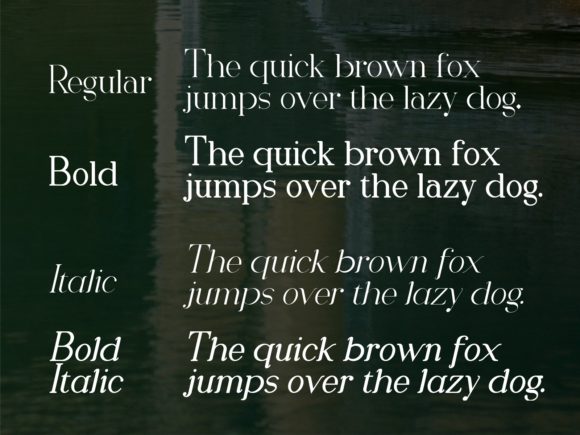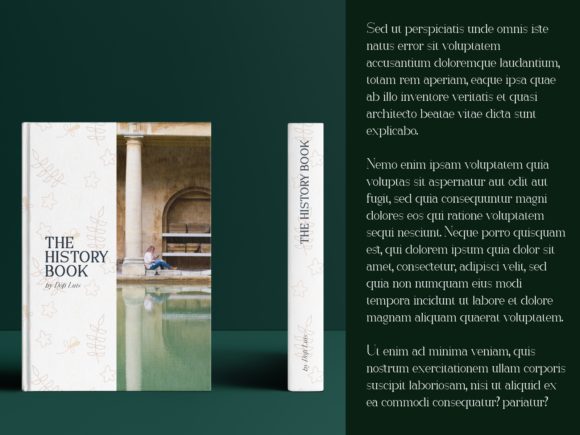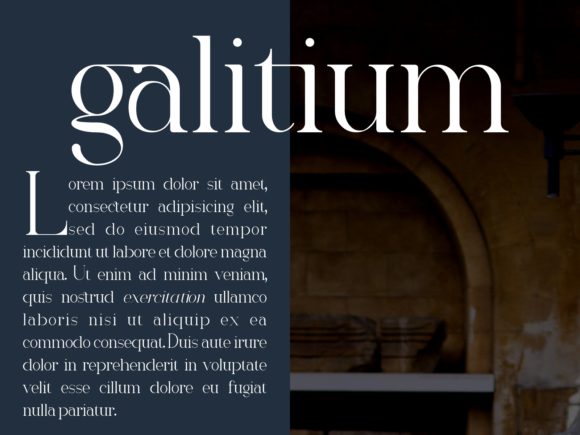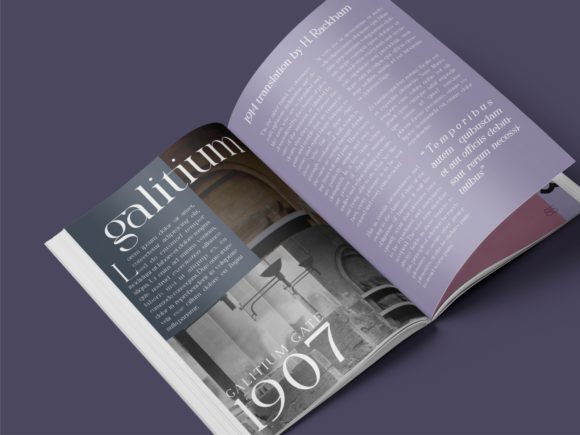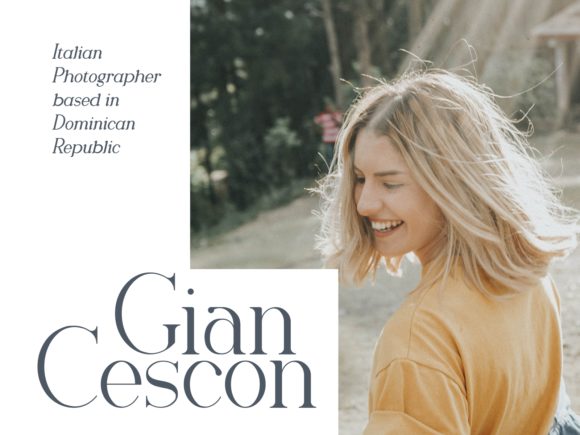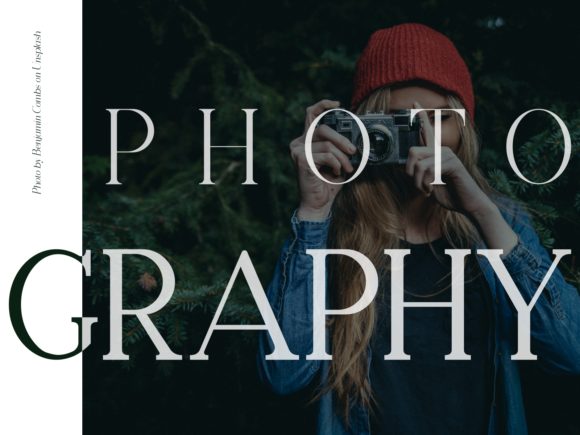
Introduction to Romany Serif Font
Do you ever find yourself staring at a blank canvas, desperately searching for the perfect font to bring your creative project to life? The struggle is real, but fear not – we’ve got you covered! Today, we’re shining the spotlight on the stunning Romany Serif Font, a game-changer for designers looking to elevate their work.
With its sleek, minimalist design and high-quality aesthetic, Romany Serif Font is the perfect design resource for anyone seeking to add a touch of sophistication to their creative endeavors. Whether you’re working on a brochure, a website, or a social media campaign, this beautiful font is sure to make your design stand out from the crowd.
Key Features of Romany Serif Font
- High quality, elegant design perfect for creative projects and designs.
- Supports a range of languages, including Latin, Cyrillic, and Greek scripts.
- Includes 6 font styles: Light, Regular, Bold, Italic, Bold Italic, and Outline, offering versatility for various design needs.
Honest Review: Romany Serif Font
I recently stumbled upon the Romany Serif Font and I must say it’s been a game-changer for my creative projects. The moment I laid eyes on it, I knew I had to give it a try. As a designer, I’m always on the lookout for high-quality fonts that can elevate my designs to the next level.
- ✨ High-quality design: The Romany Serif Font is beautifully crafted with a unique, elegant style that’s perfect for any creative project.
While the Romany Serif Font is an amazing resource, there are a few limitations I’d like to mention:
- ⚠️ Limited font weights: The font only comes in a few weights, which might limit its versatility for some designers.
- ⚠️ No extensive language support: The font might not be suitable for languages that require extensive character sets.
Overall, I’m thoroughly impressed with the Romany Serif Font. Its unique style, high-quality design, and free download make it an invaluable resource for designers. While it may have some limitations, I’d definitely recommend it to anyone looking to elevate their creative projects.
The Romany Serif Font is a high-quality design resource ideal for creative projects. Its elegant and sophisticated design makes it perfect for various applications, including branding, advertising, and editorial content.
Tips for Getting the Most Out of Romany Serif Font
To get the most out of the Romany Serif Font, experiment with different font sizes, colors, and combinations to create unique and visually appealing designs.
The Romany Serif Font is commonly used for:
Branding and logo design
Advertising and marketing materials
Editorial content and publishing